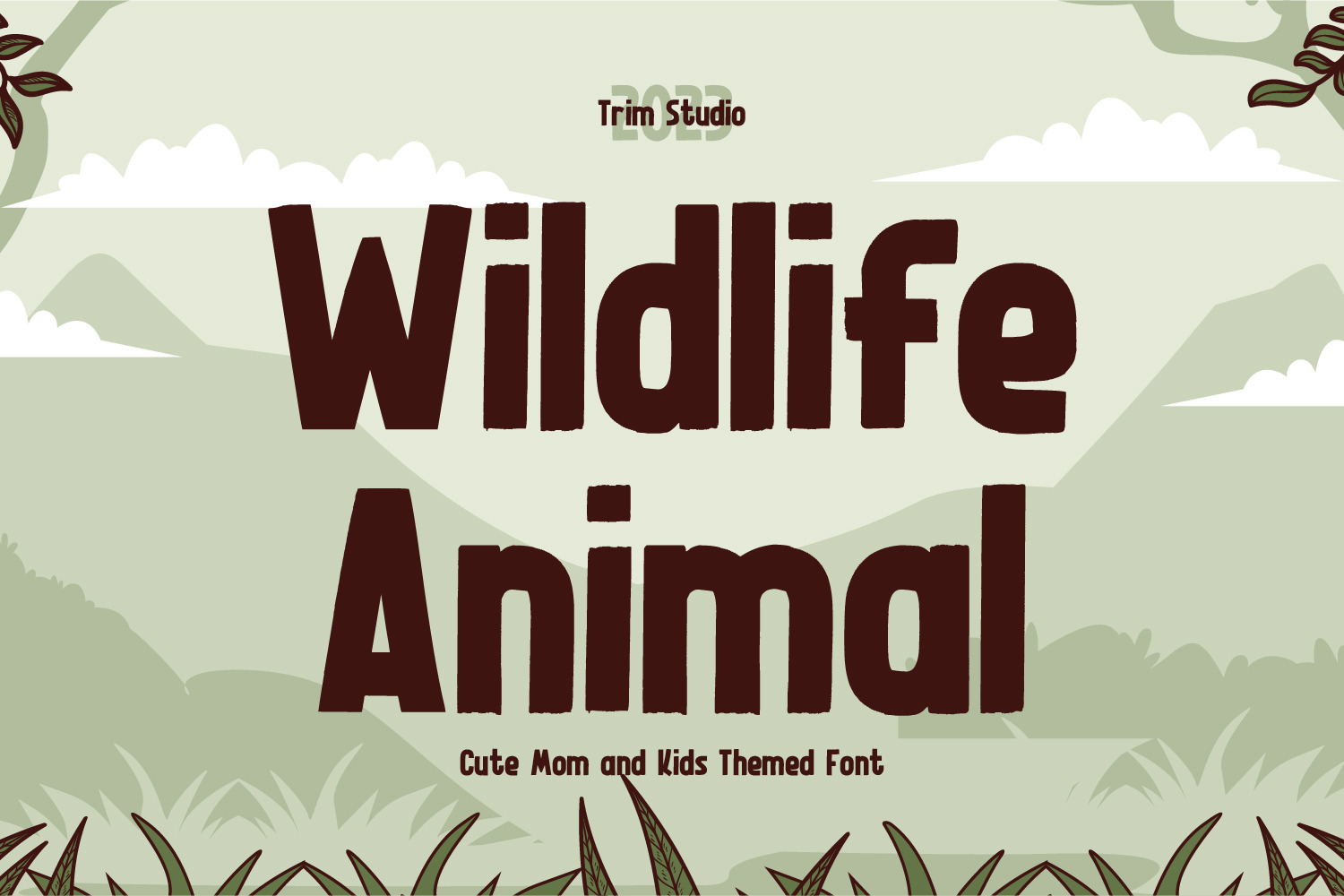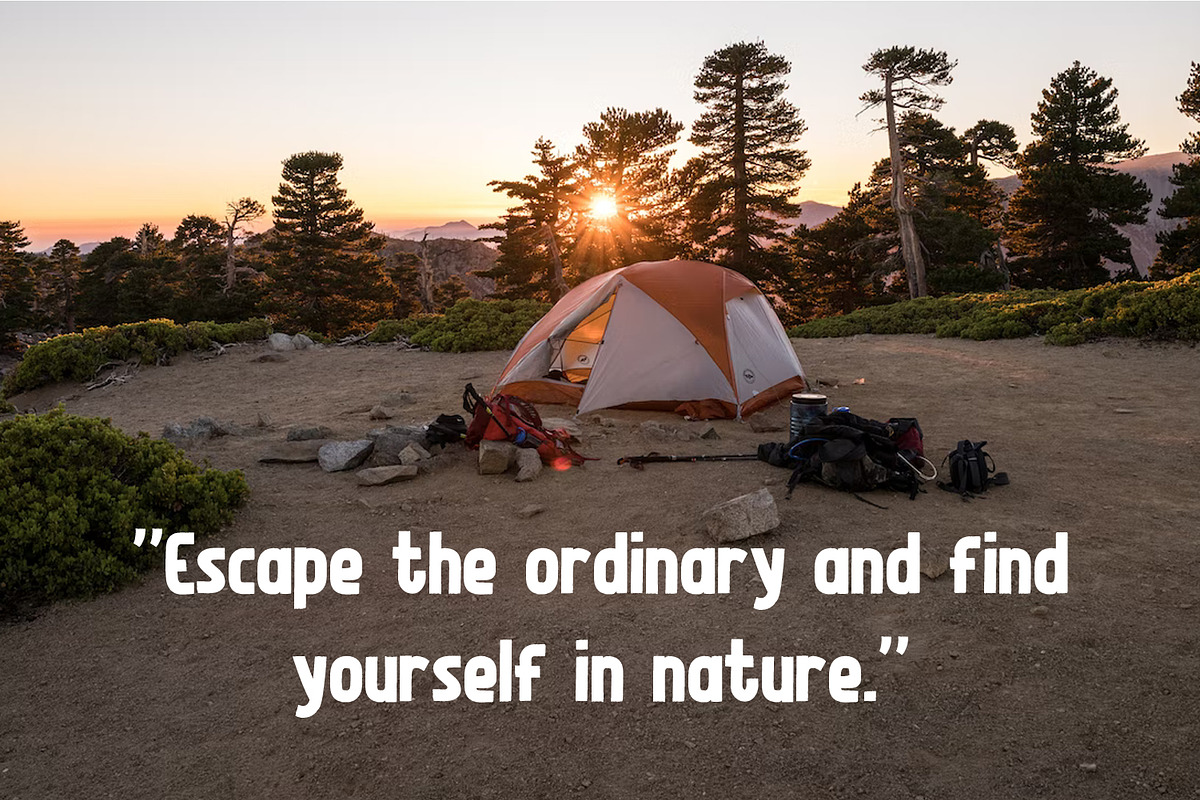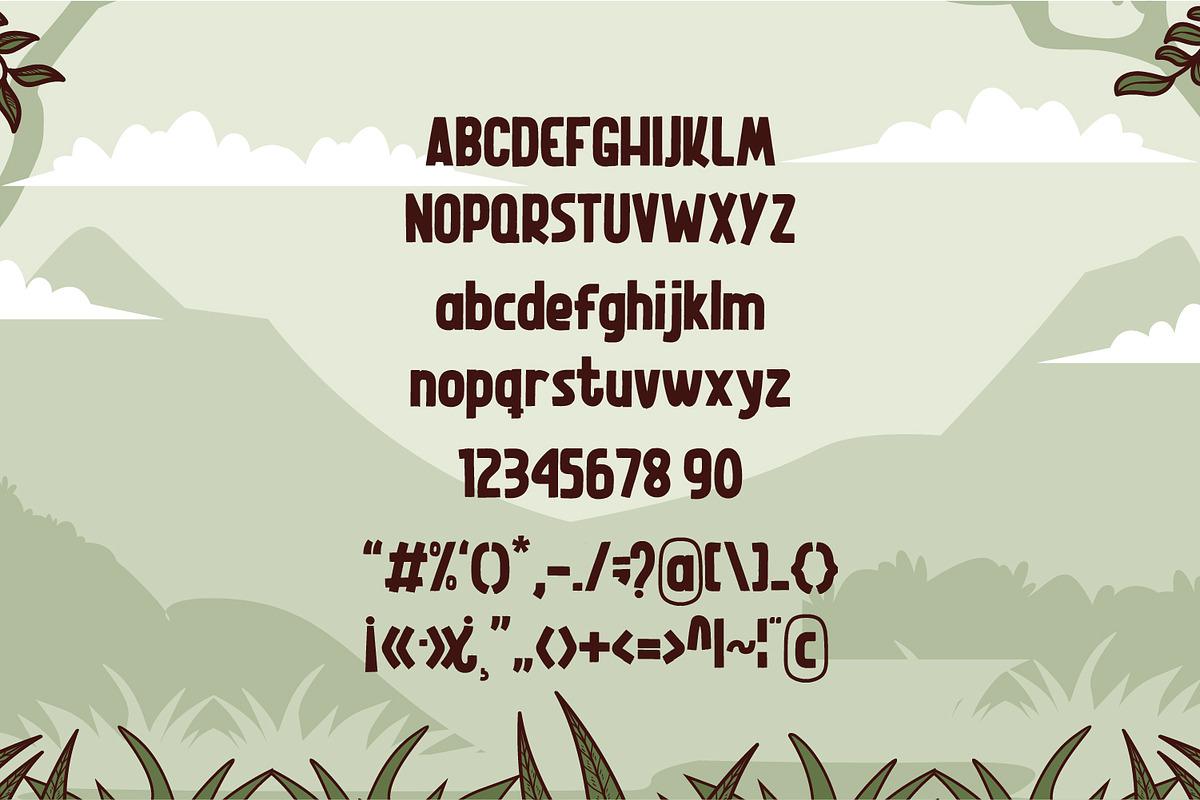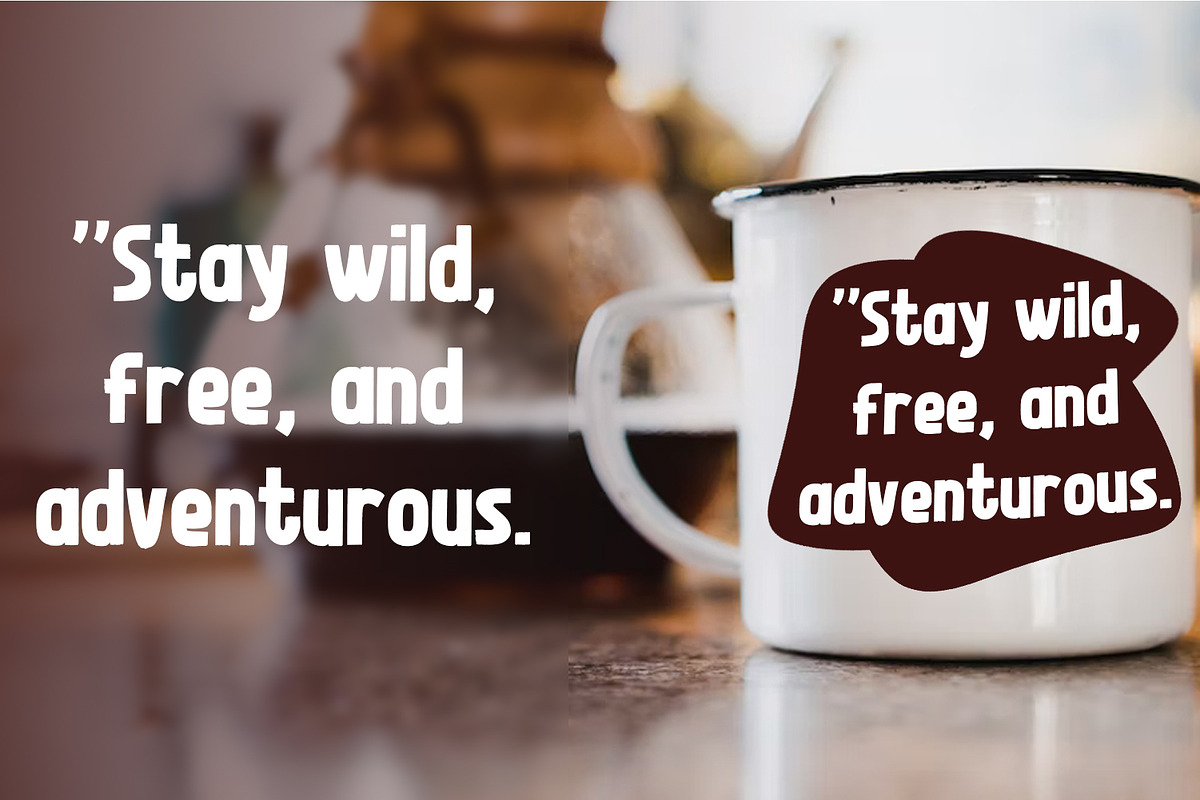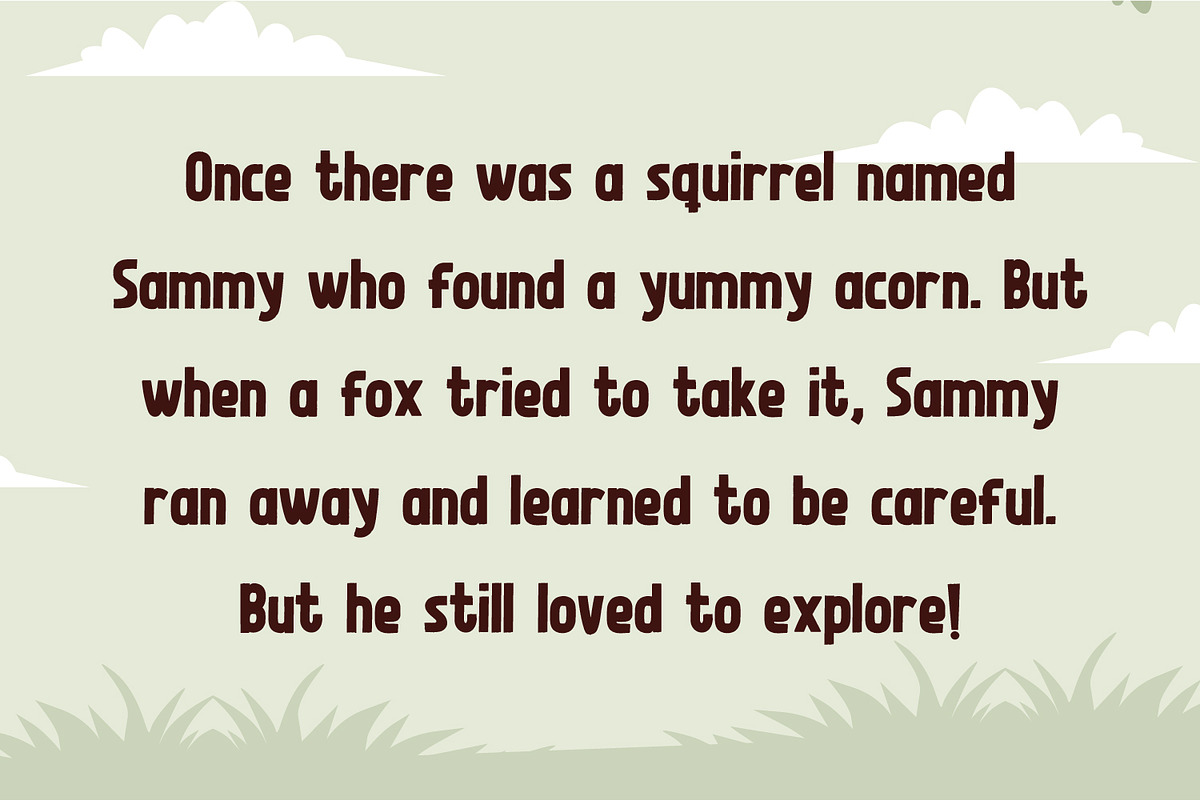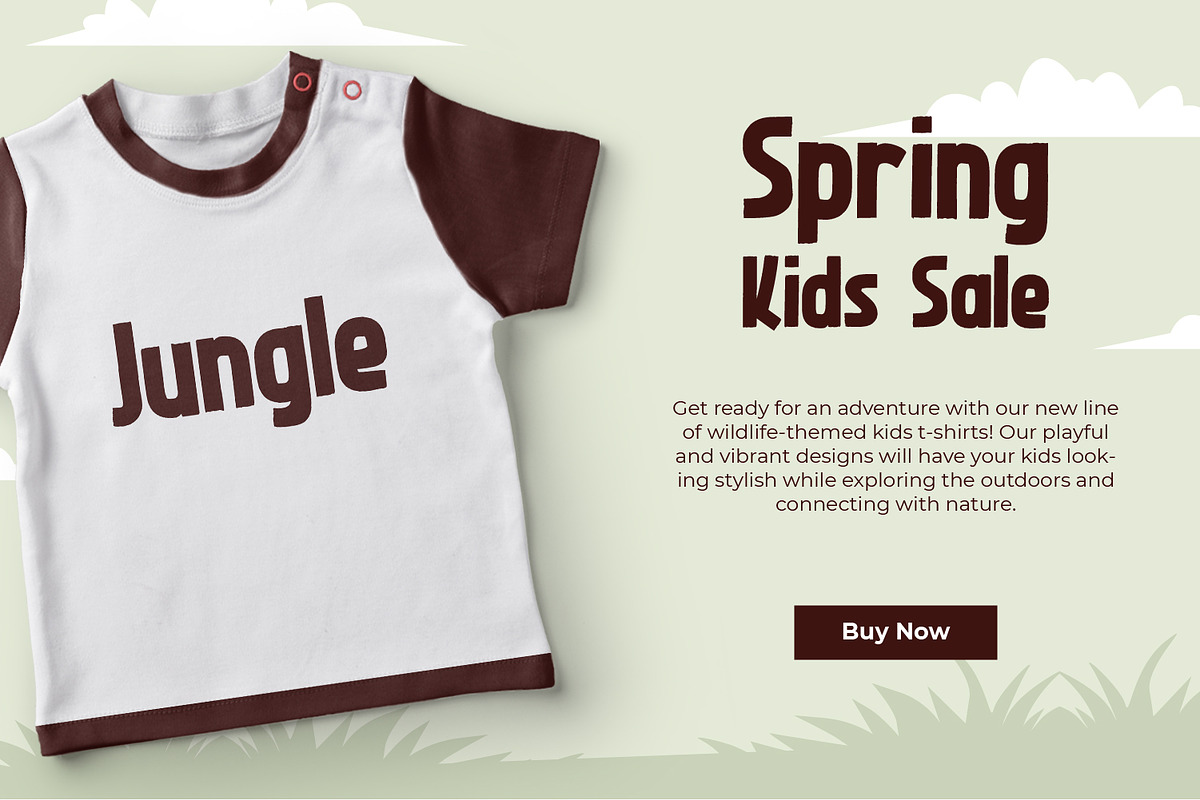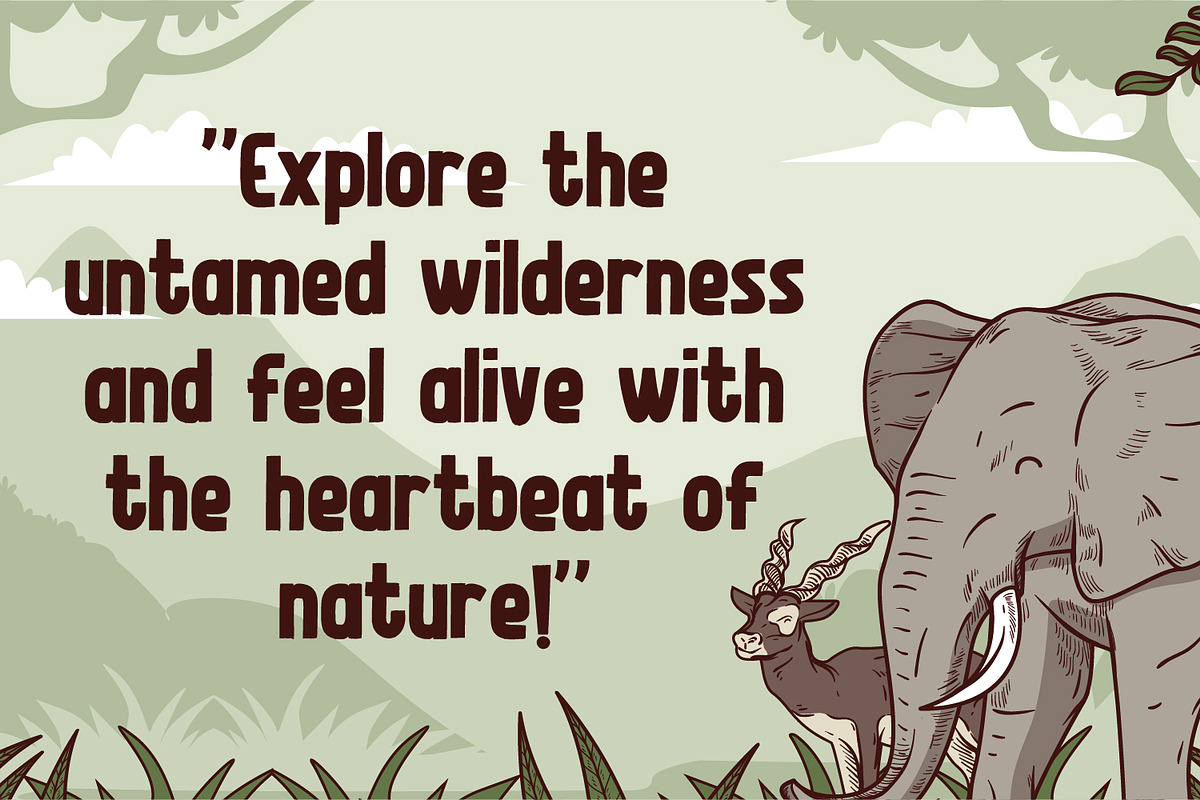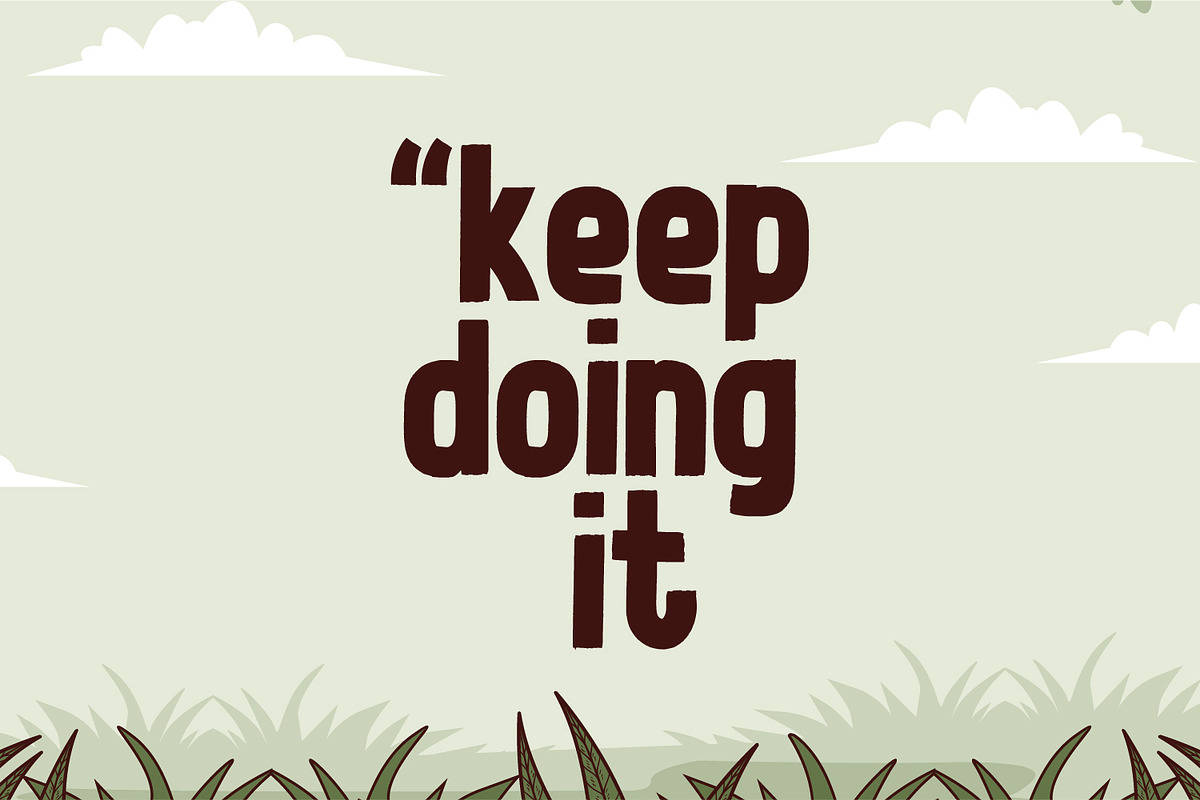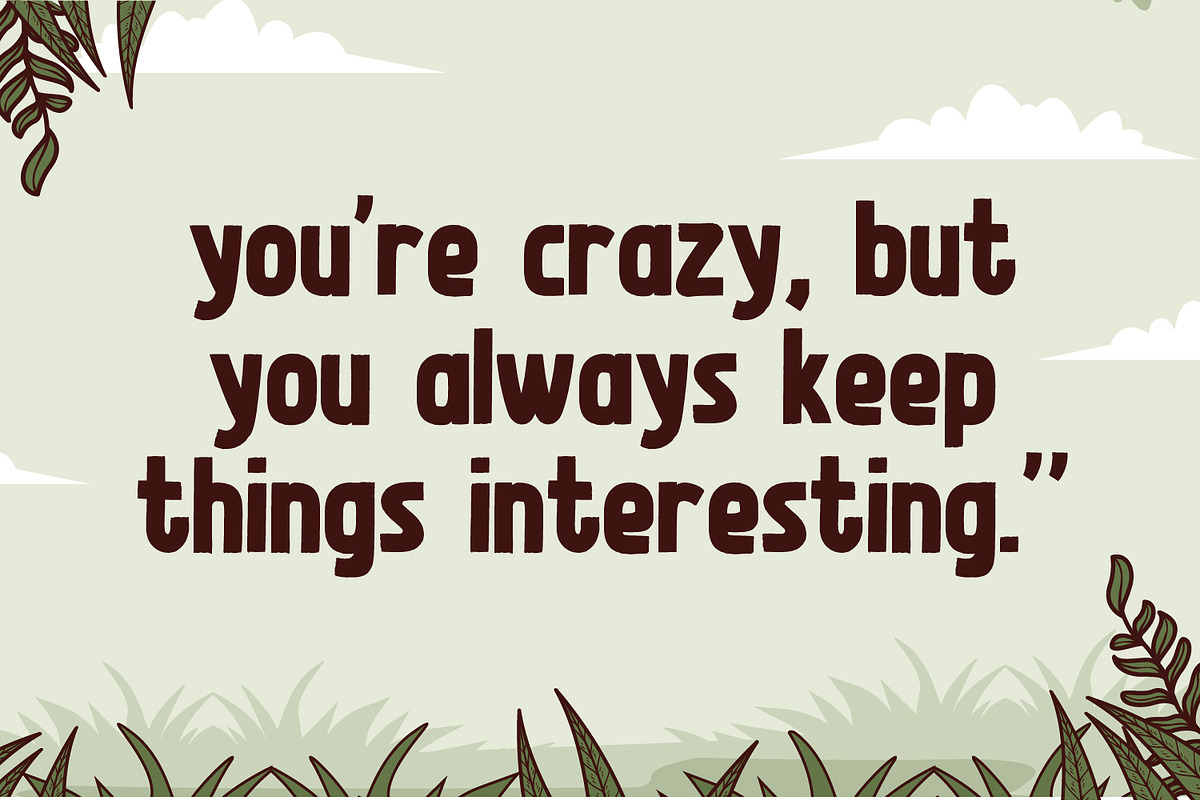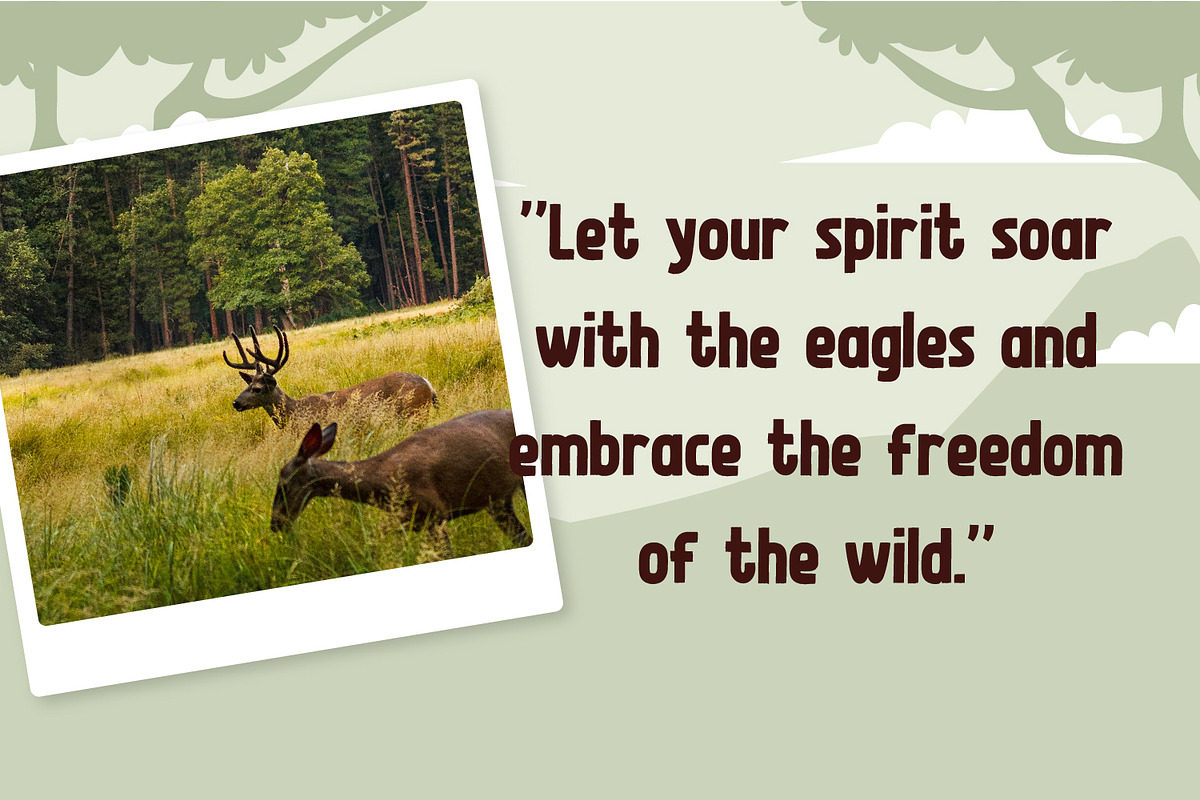
Wildlife Animal - Display Theme Font
Wildlife Animal a sharp and cutting-edge typeface that perfectly captures the spirit of the forest and the wild. Ideal for Easter Day designs, this font boasts a cute and playful style that's sure to delight. Whether you're creating invitations, greeting cards, or posters, "Wildlife Animal" will help your text stand out with its unique and eye-catching design. With its forest-inspired theme and playful, yet sharp style, this font is perfect for adding a touch of nature to your designs. Download "Wildlife Animal" today and take your Easter Day designs to the next level!